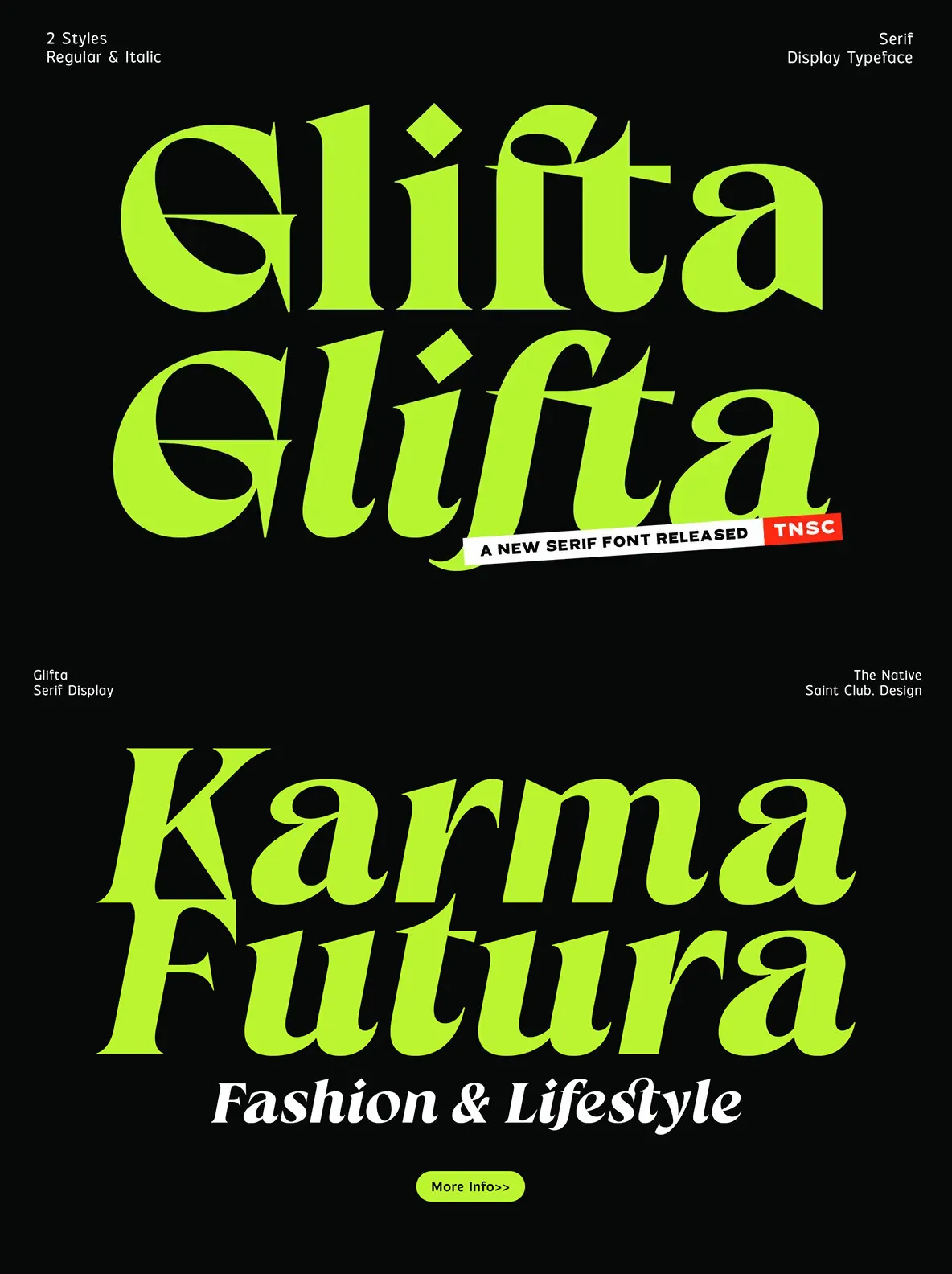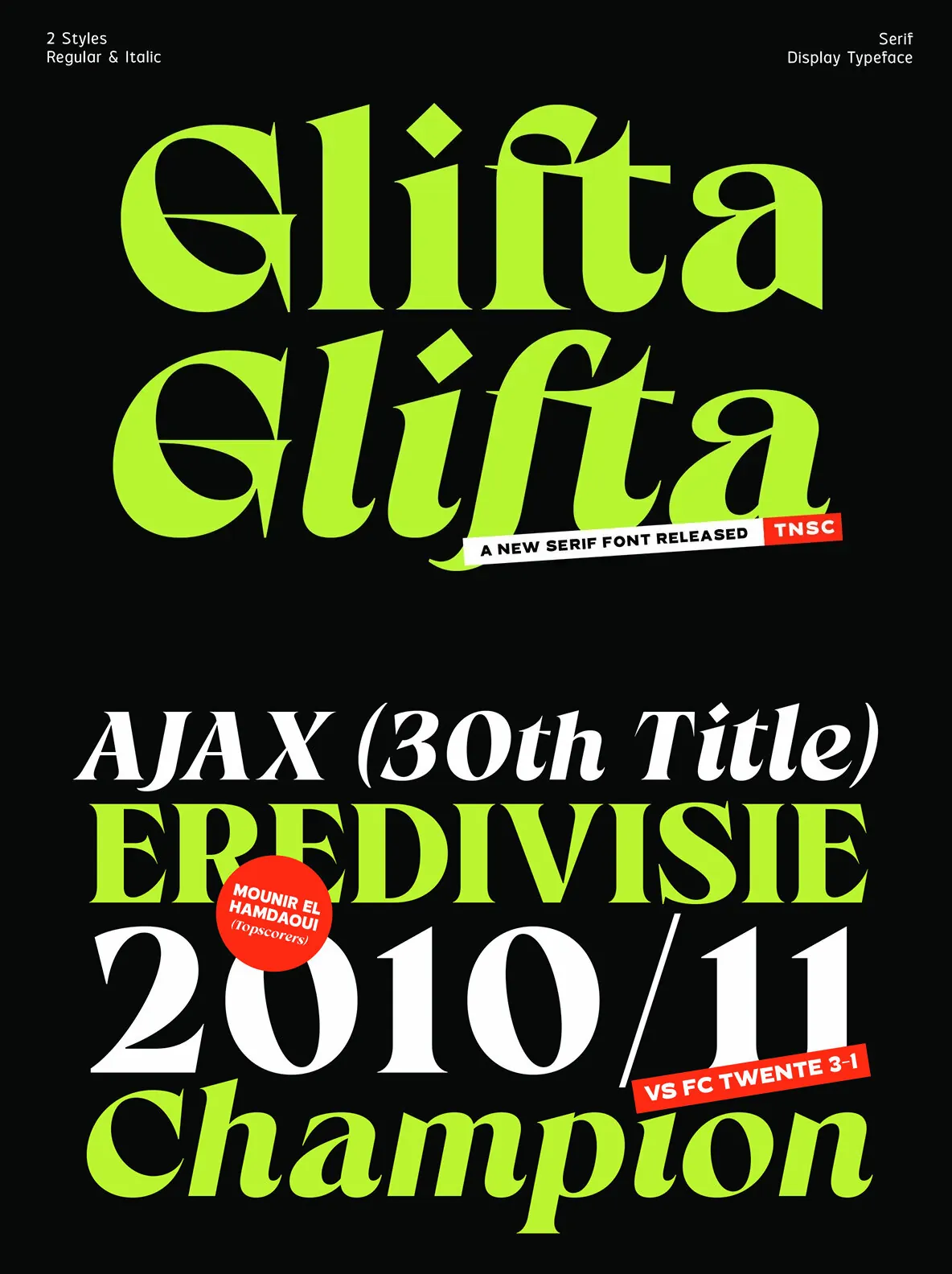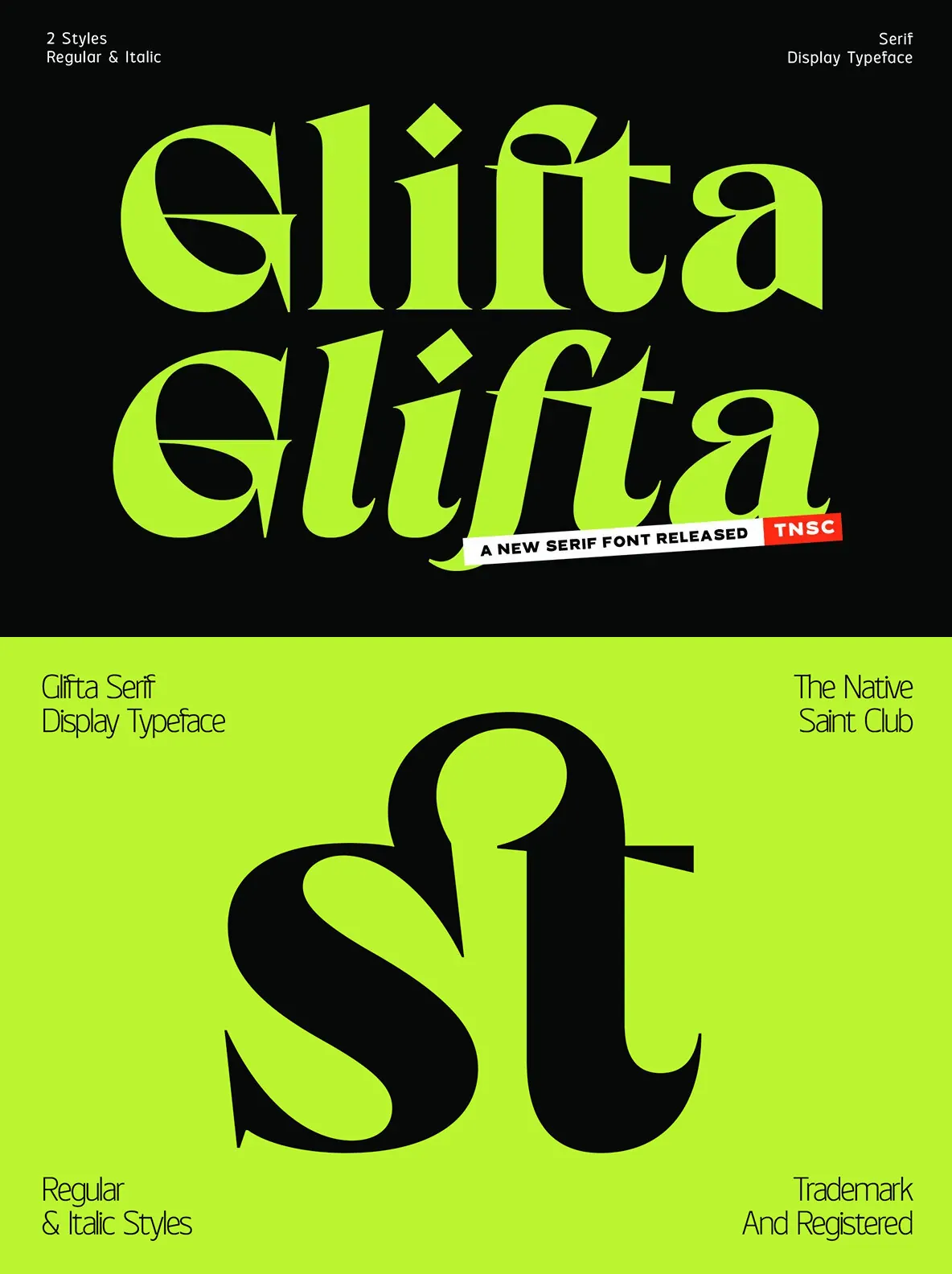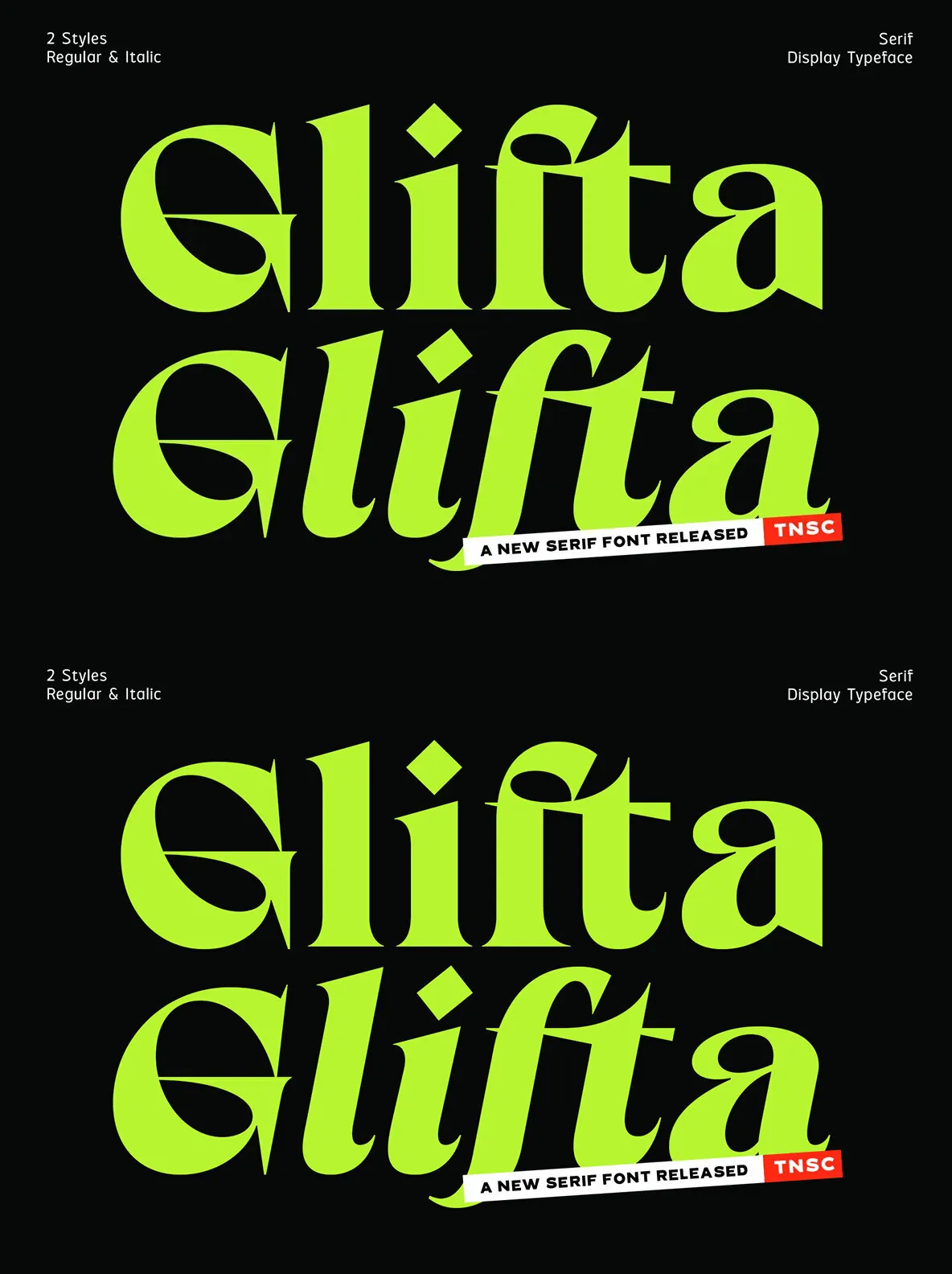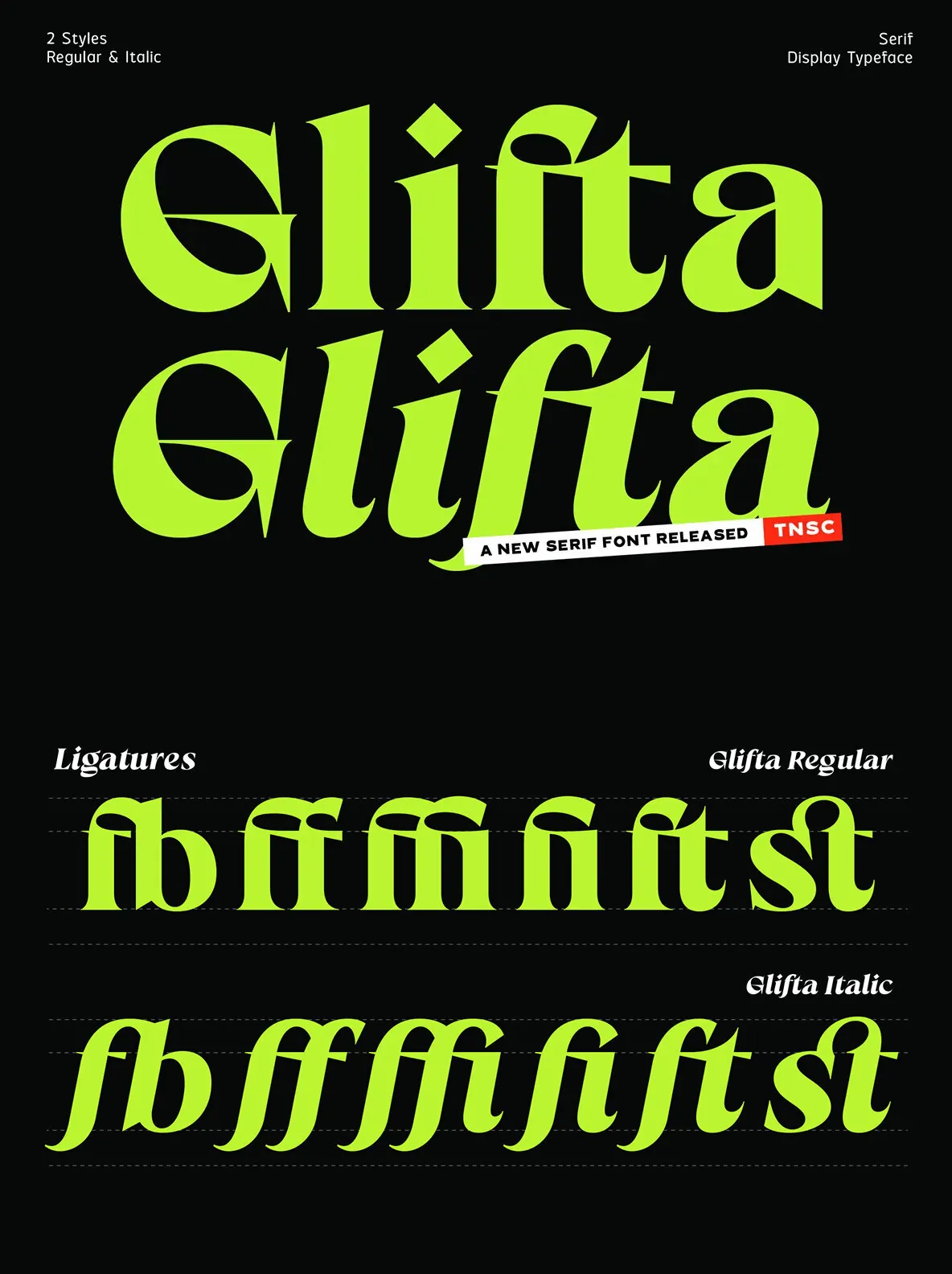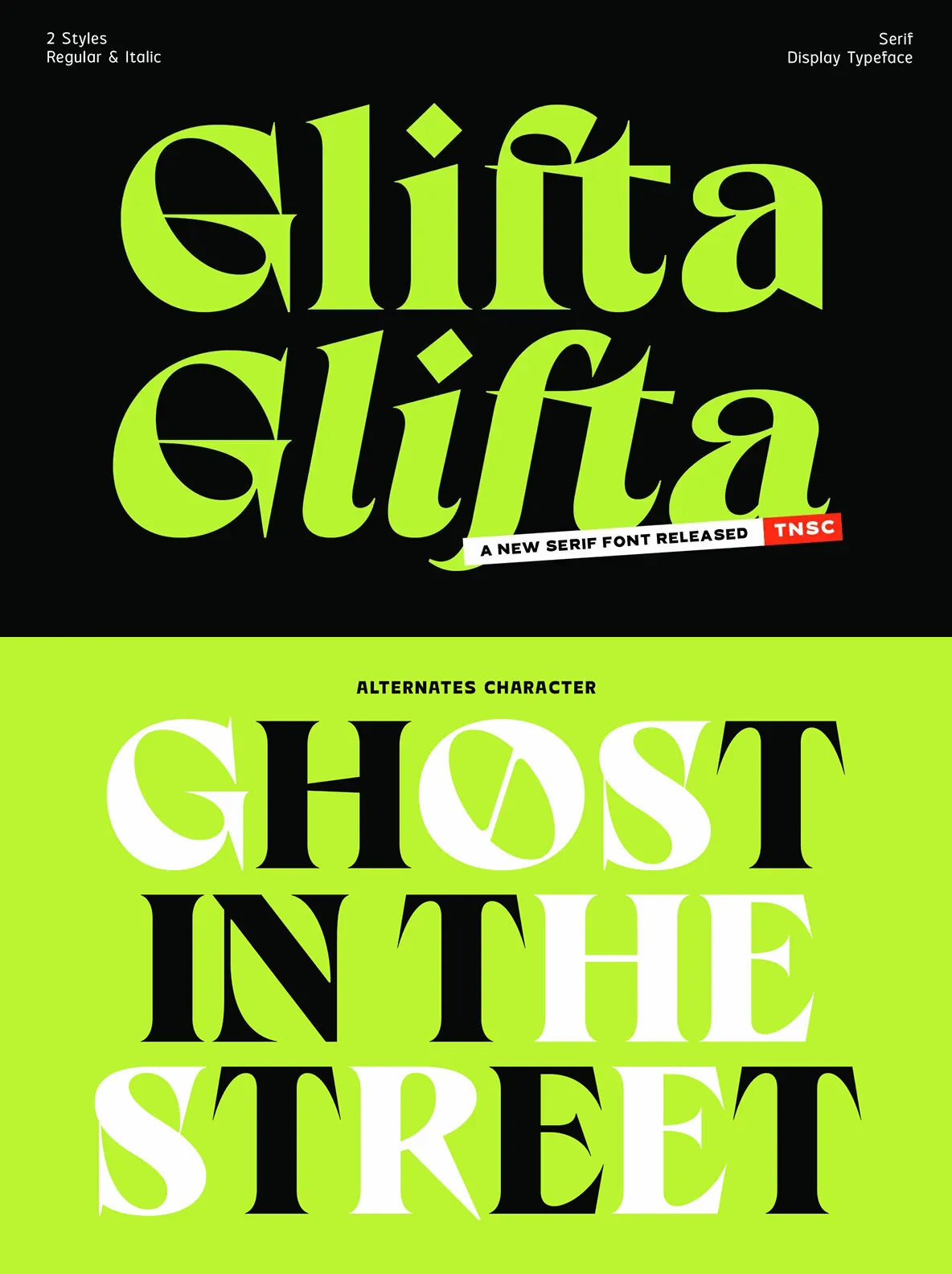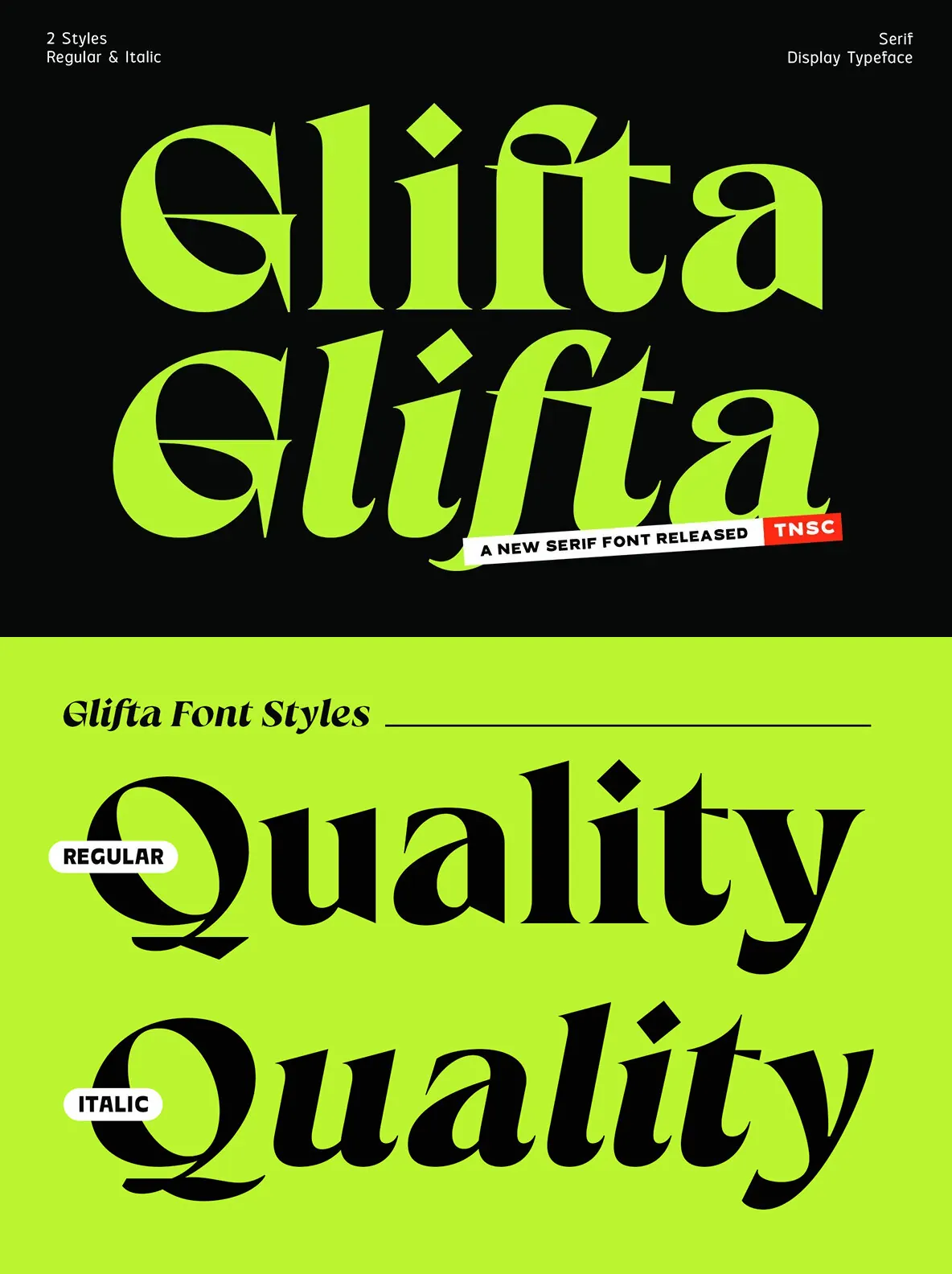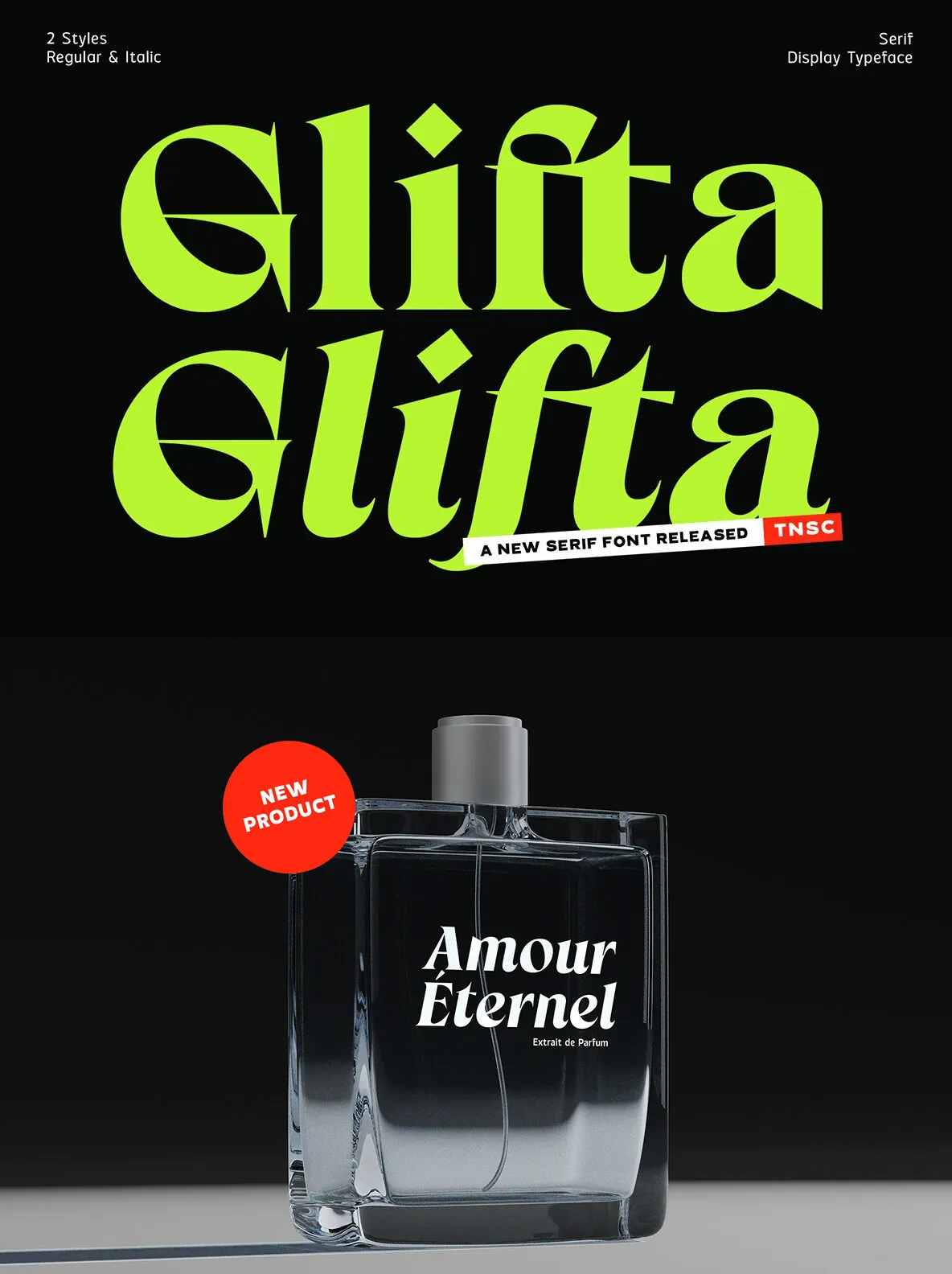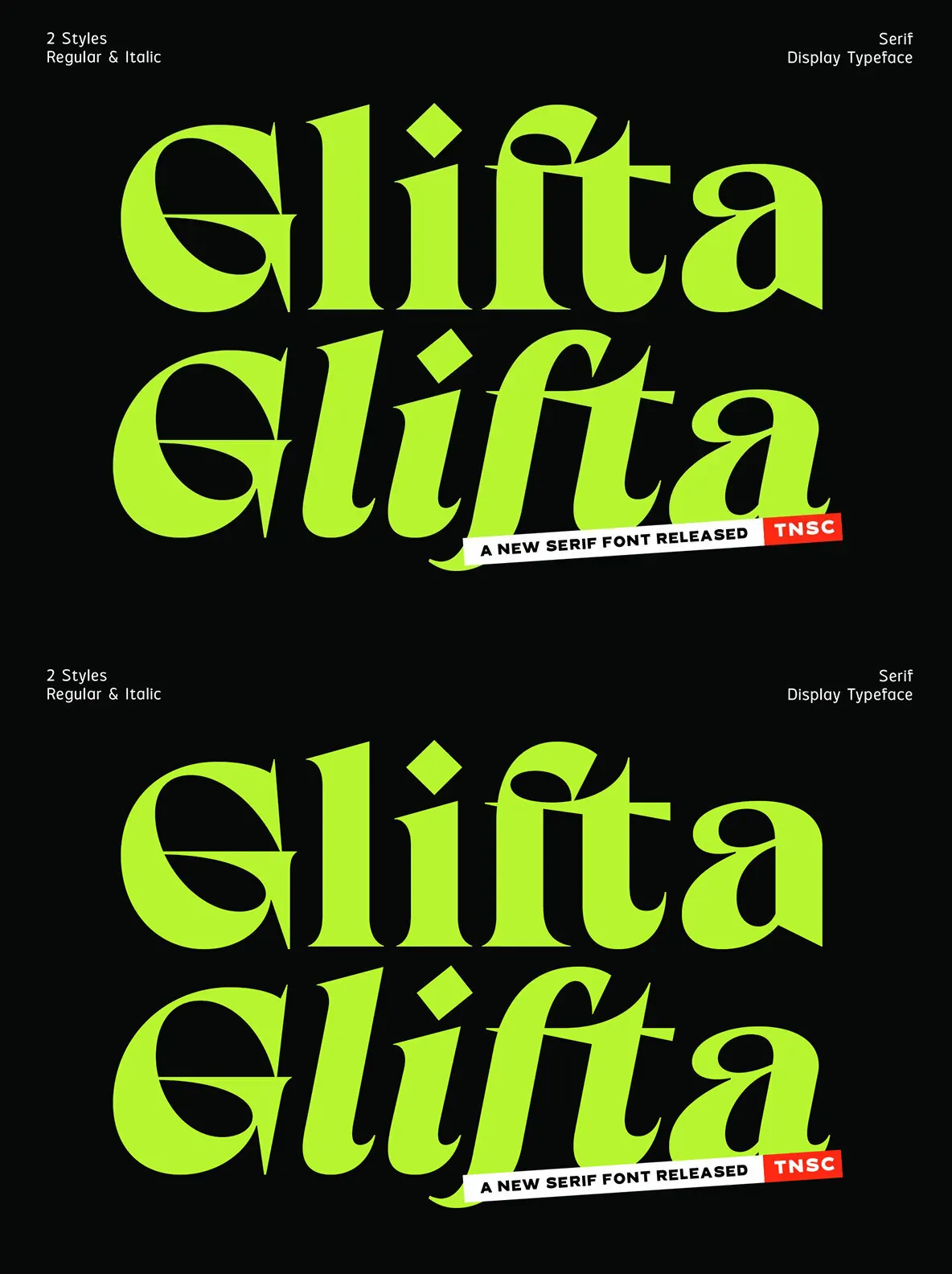
Glifta is a dynamic display serif font available in two striking styles: Regular and Italic. Its robust and commanding aesthetic makes it ideal for a variety of design projects, delivering a bold and direct presence. From logos and branding to product packaging and impactful quotes, Glifta offers versatility without compromising its strong, dominating character.
The font’s bold nature enhances projects that require a strong serif influence. It’s perfect for creating posters and other design elements where a powerful serif style is needed. With its distinct presence, Glifta ensures your designs stand out and convey a decisive message, making it an excellent choice for professionals seeking to make an impact with their work.